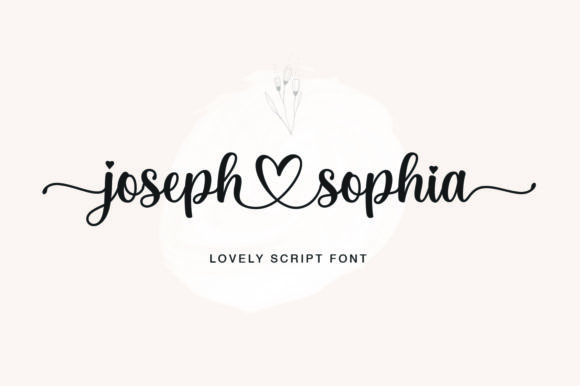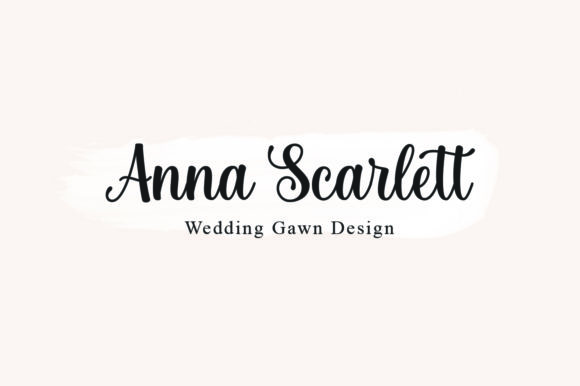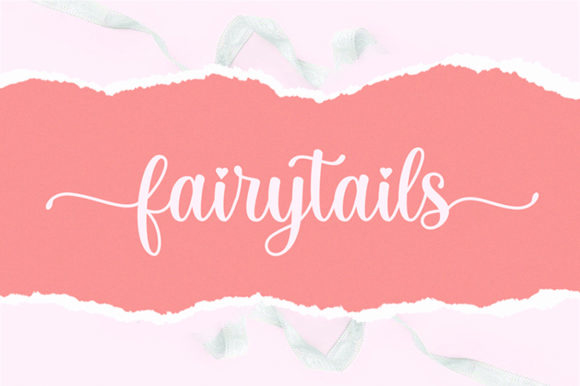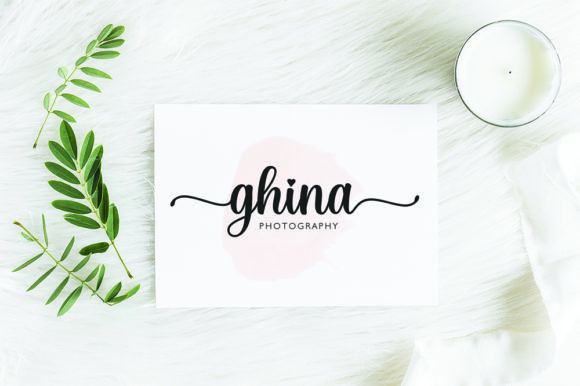
Joseph Sophia Font: Elegant Handwritten Script for Wedding Design
About the Joseph Sophia Font
The wait is over! The incredible Joseph Sophia Font is now available for your design toolkit. Joseph Sophia feels equally charming and elegant. It looks lovely on wedding invitations, thank you cards, quotes, greeting cards, logos, business cards and every other design which needs a handwritten touch.
Its elegant yet approachable personality makes Joseph Sophia ideal for branding projects requiring a touch of sophistication, particularly logos, stationery, and short-form marketing materials. It excels in headlines and short text blocks on websites or packaging, where its details shine. However, avoid using it for large bodies of text or UI elements; its decorative nature can hinder readability in extensive use.
Pair Joseph Sophia with a clean sans-serif like Montserrat for a balanced contrast, or a classic serif like Garamond for a more traditional feel. For a touch of modernity, a geometric sans-serif such as Futura would create a striking juxtaposition. Scripts like Great Vibes can also work well for adding emphasis in supporting text.
The font’s core personality is refined and friendly, conveying both charm and professionalism. It’s particularly well-suited to brands in the lifestyle, fashion, or wedding industries, where a sense of quality and personal touch is highly valued.
Joseph Sophia Font Usage Examples
Joseph Sophia Font Example